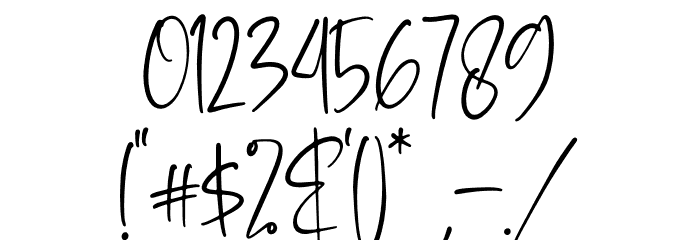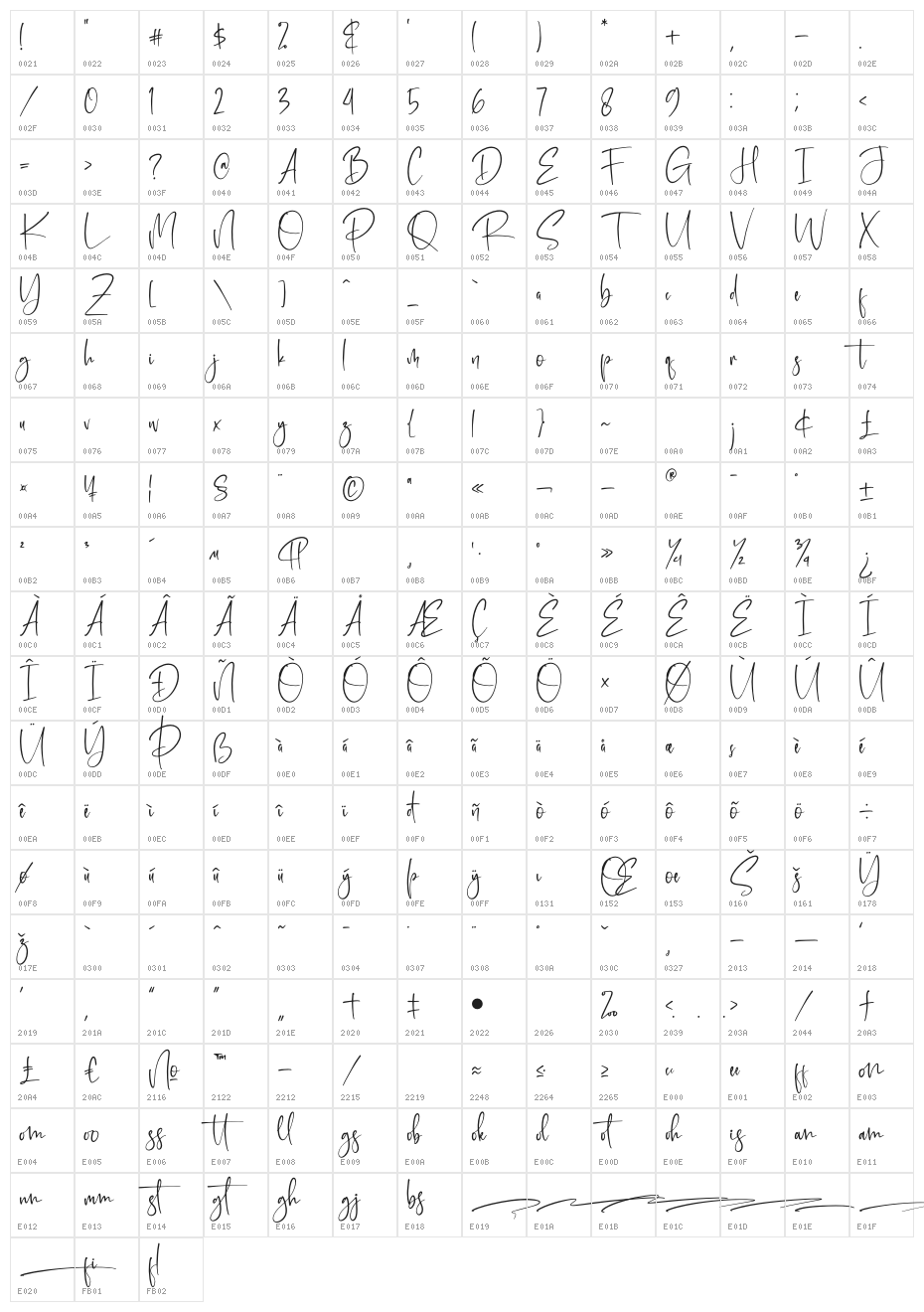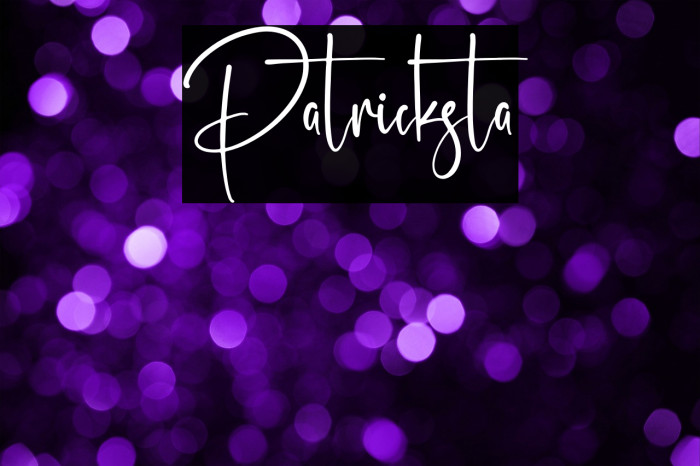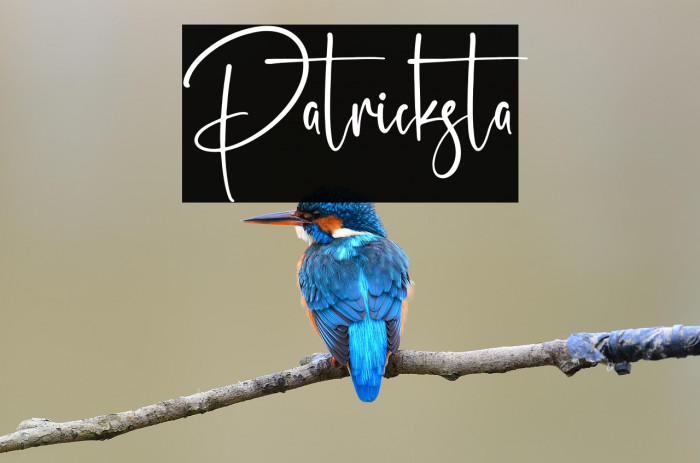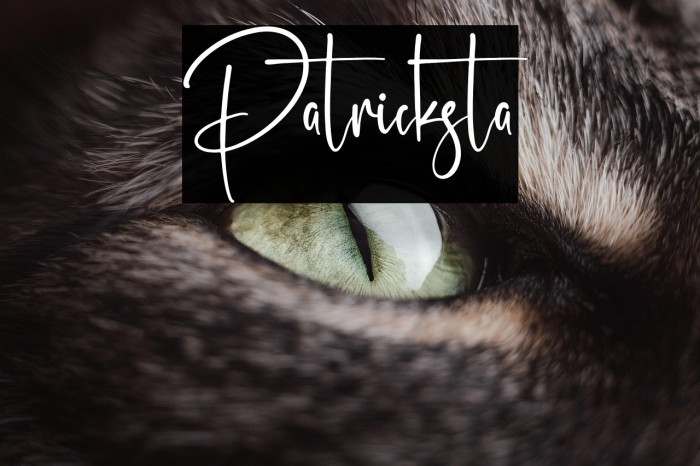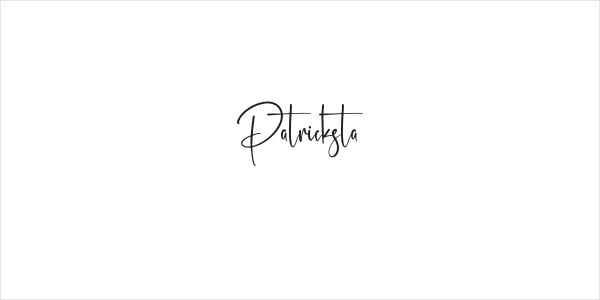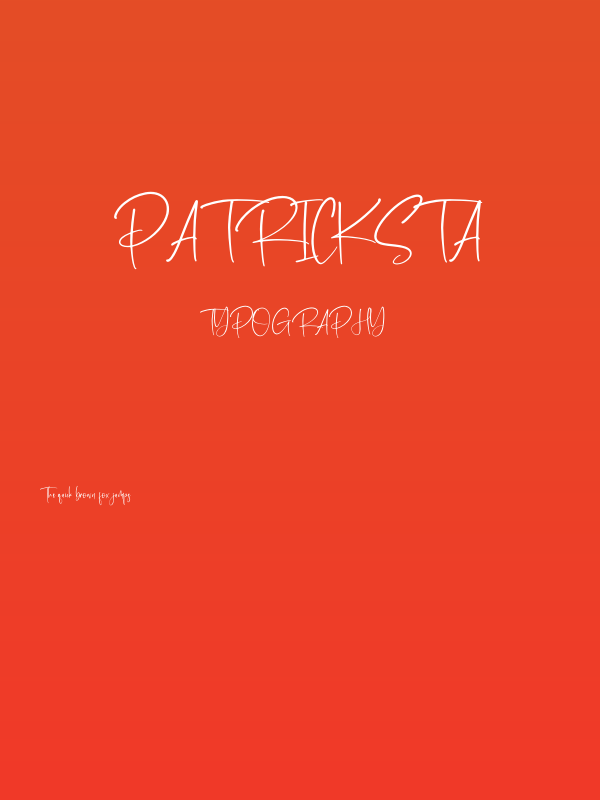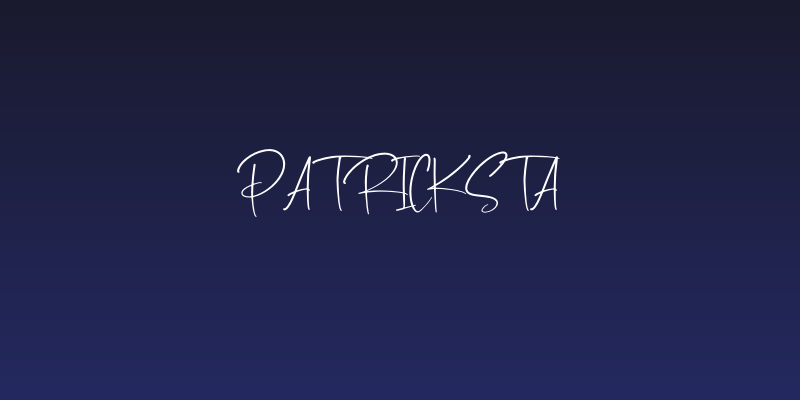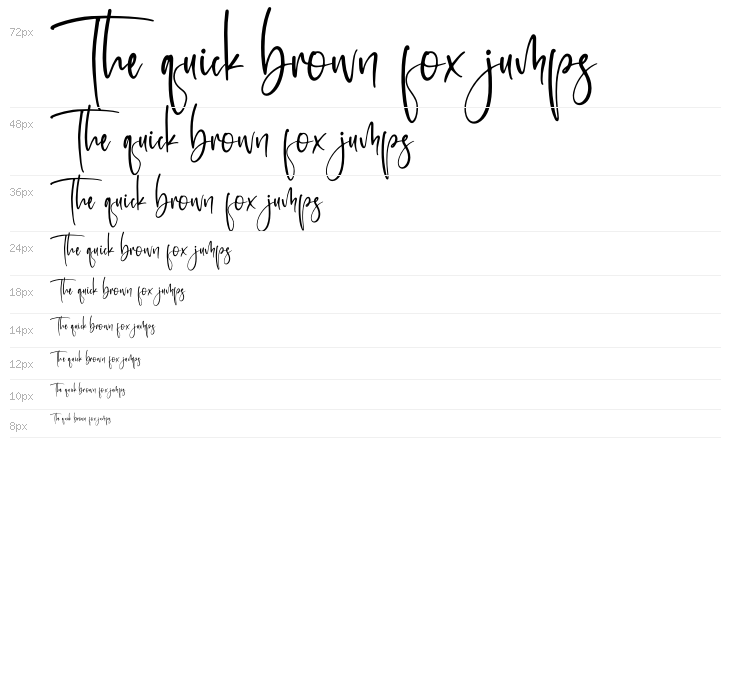
Patricksta Font
Patricksta Description
This font features a lively and expressive handwritten style, characterized by its fluid and dynamic strokes. The uppercase letters exhibit a playful yet elegant flair, with varying line thickness that adds a sense of movement and personality. The lowercase letters maintain this energetic style, offering a cohesive look across the alphabet. Numbers and special characters are crafted with the same attention to detail, ensuring versatility in various design contexts. The overall appearance is both modern and artistic, making it suitable for creative projects that require a personal touch.